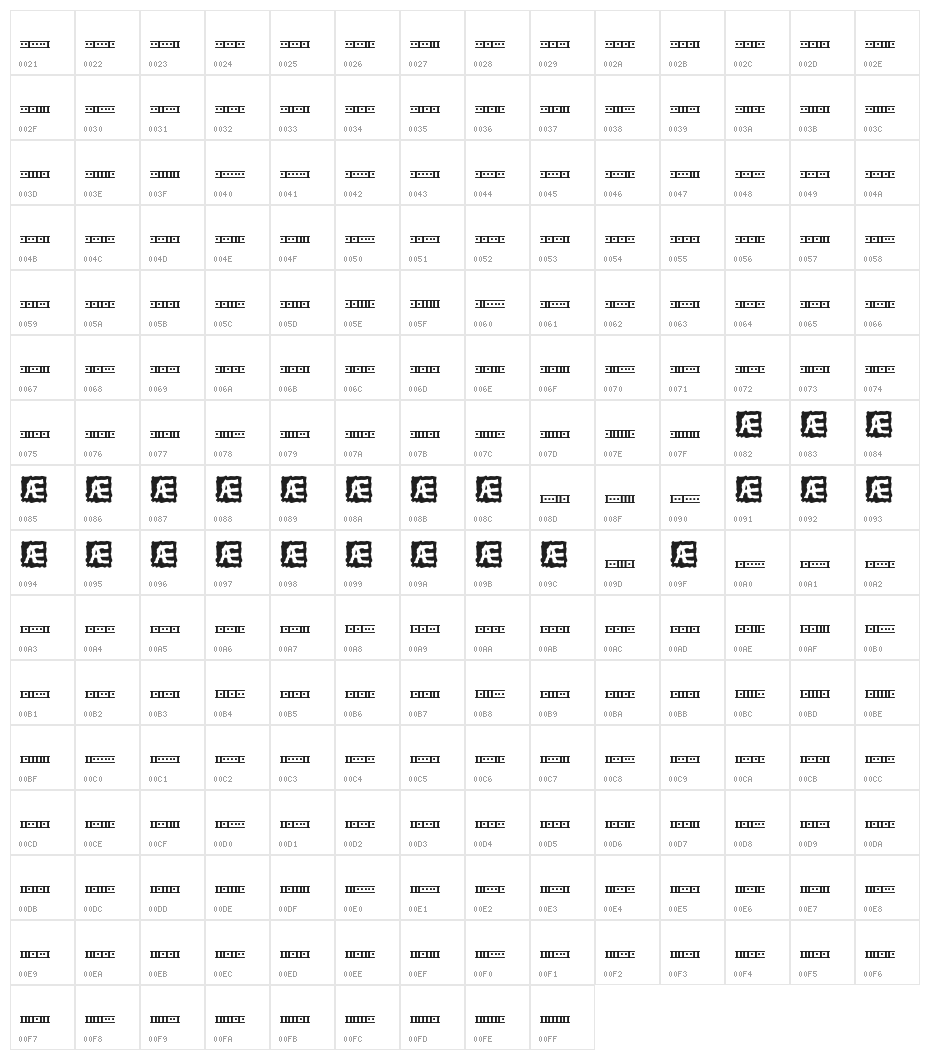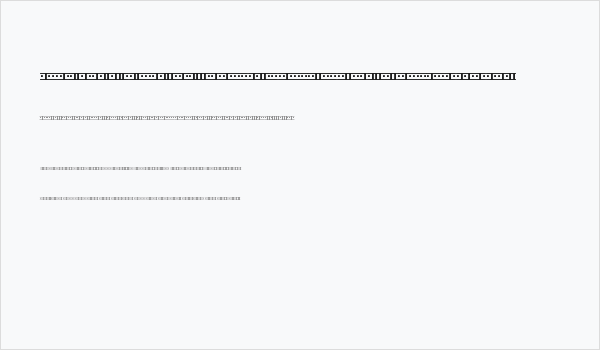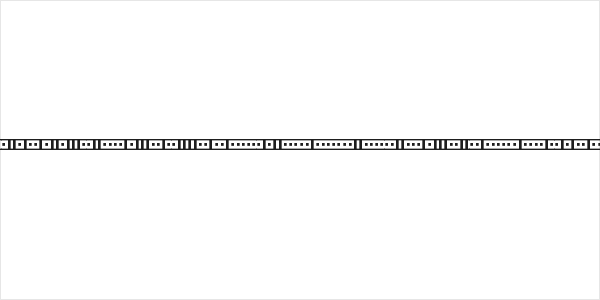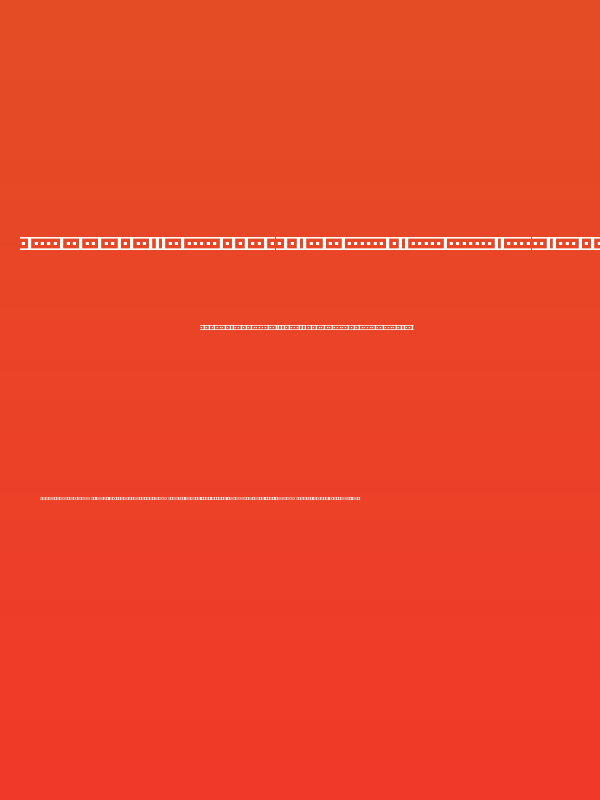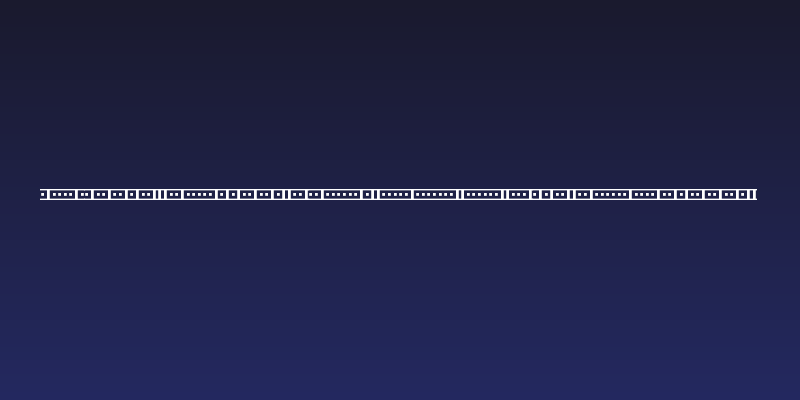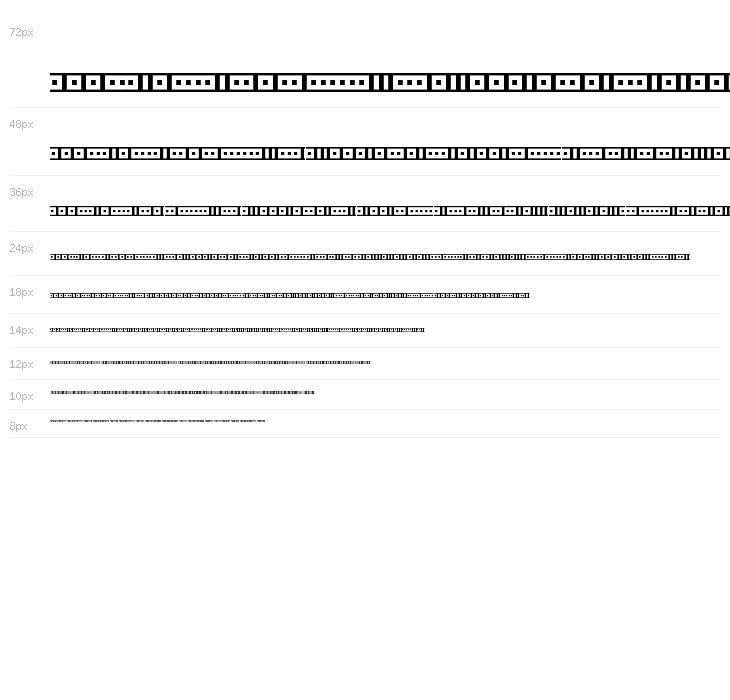
Binary X 01s BRK Font
Binary X 01s BRK Description
This font features a unique design that mimics binary code, with each character resembling a series of zeros and ones. The style is highly geometric, with a consistent grid-like pattern that gives it a digital, futuristic appearance. The characters are composed of rectangular shapes and lines, creating a pixelated effect that is both modern and distinctive. This font is ideal for projects that require a technological or sci-fi theme, as it captures the essence of digital communication and computer systems. Its structured and uniform design makes it suitable for creative and experimental uses, where a bold statement is needed.
| Overall Style | Futuristic, Digital |
| Proposed Projects | Ideal for tech-themed designs, sci-fi projects, digital art, and experimental typography. |